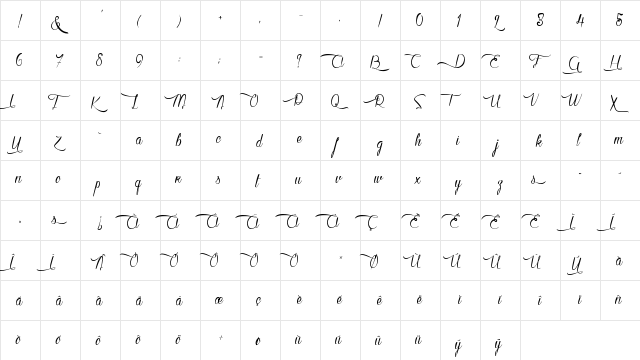
Karine aime les Chocolats Regular
Karine aime les Chocolats is a composed and adaptable typeface that performs quietly and consistently across a wide range of design contexts.